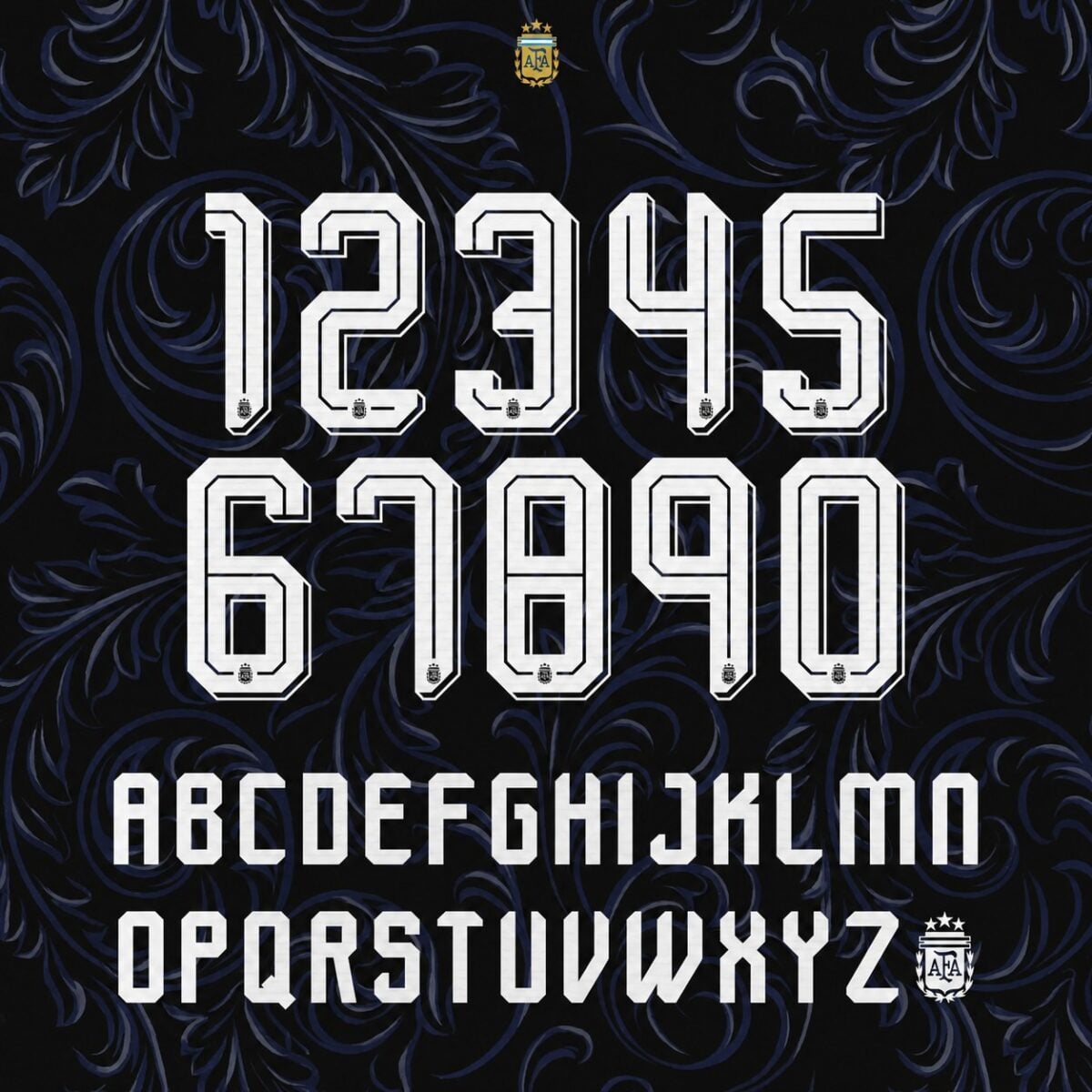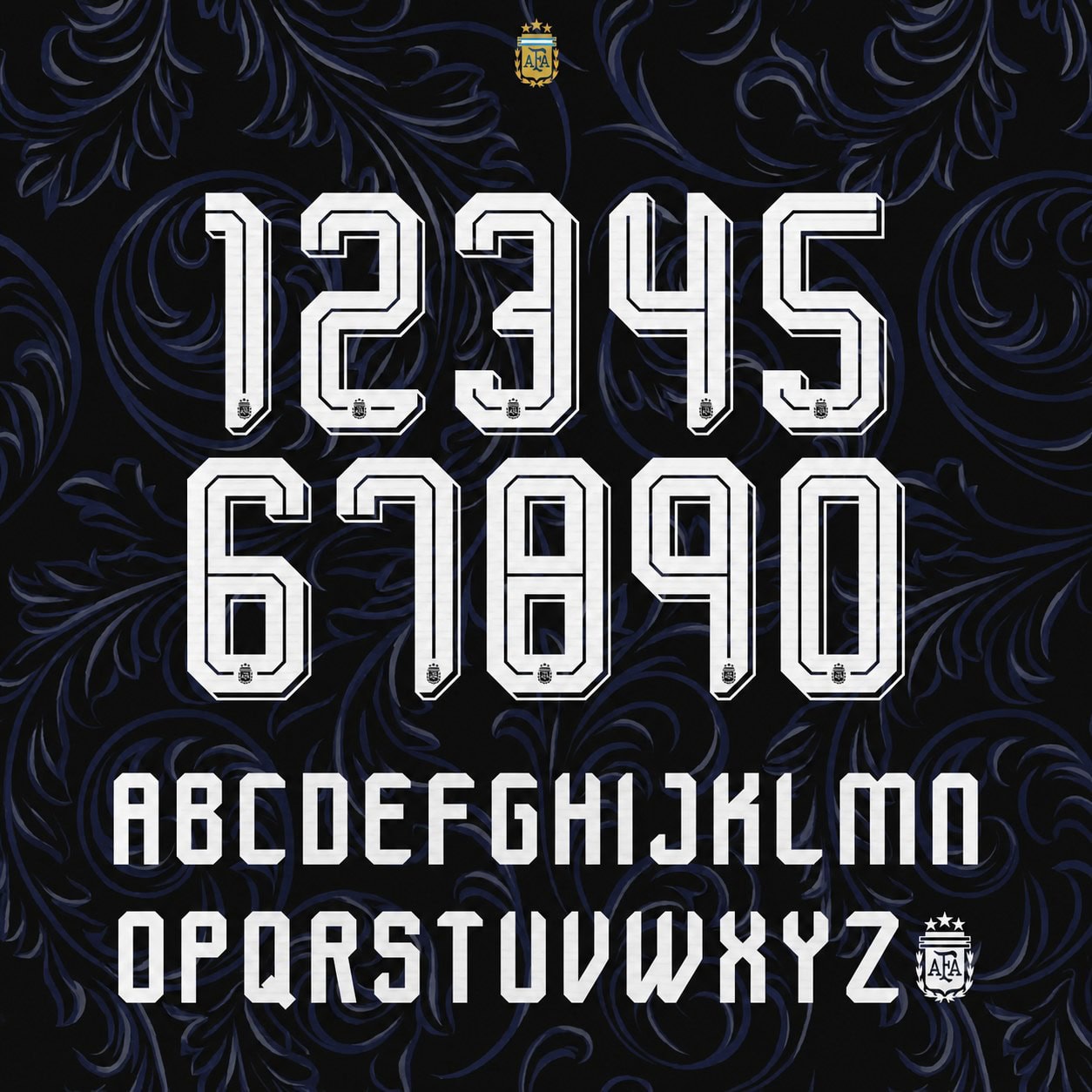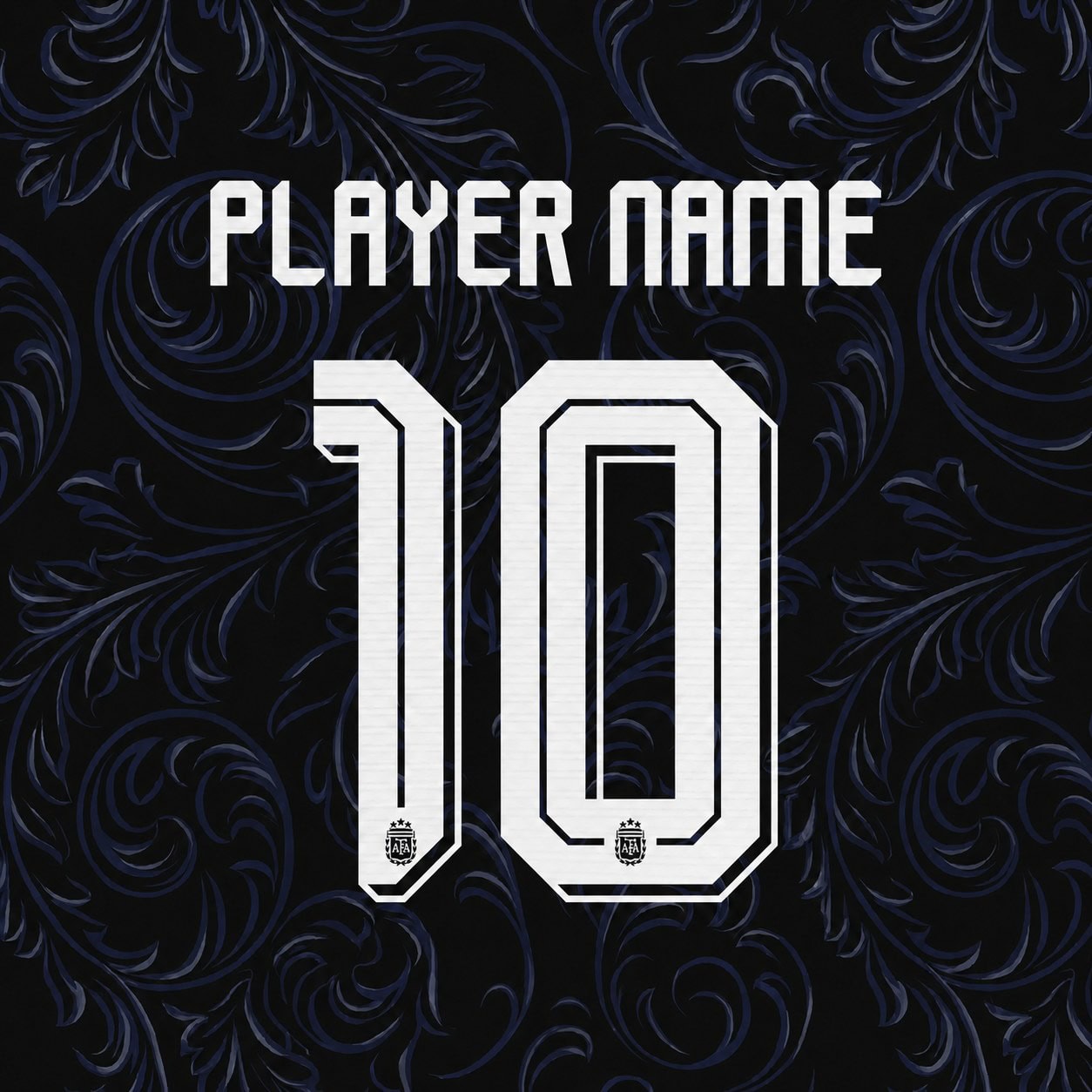
Complete Argentina World Cup 2026 away font set — every letter and every number in one kit, in the lettering style of the 2026 national team away shirt, white colourway as shown.
- Full set included: all letters A–Z + all numbers 0–9, exactly as shown
- Fine crest detailing inside the numbers